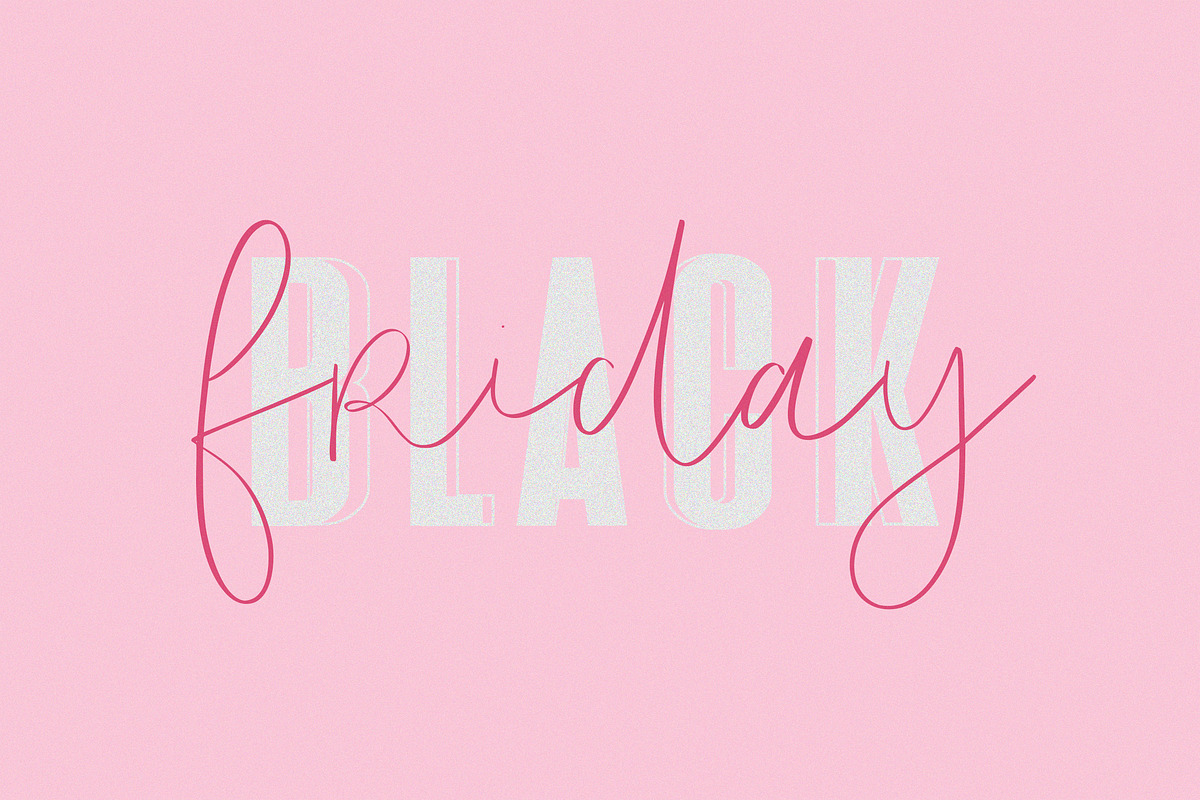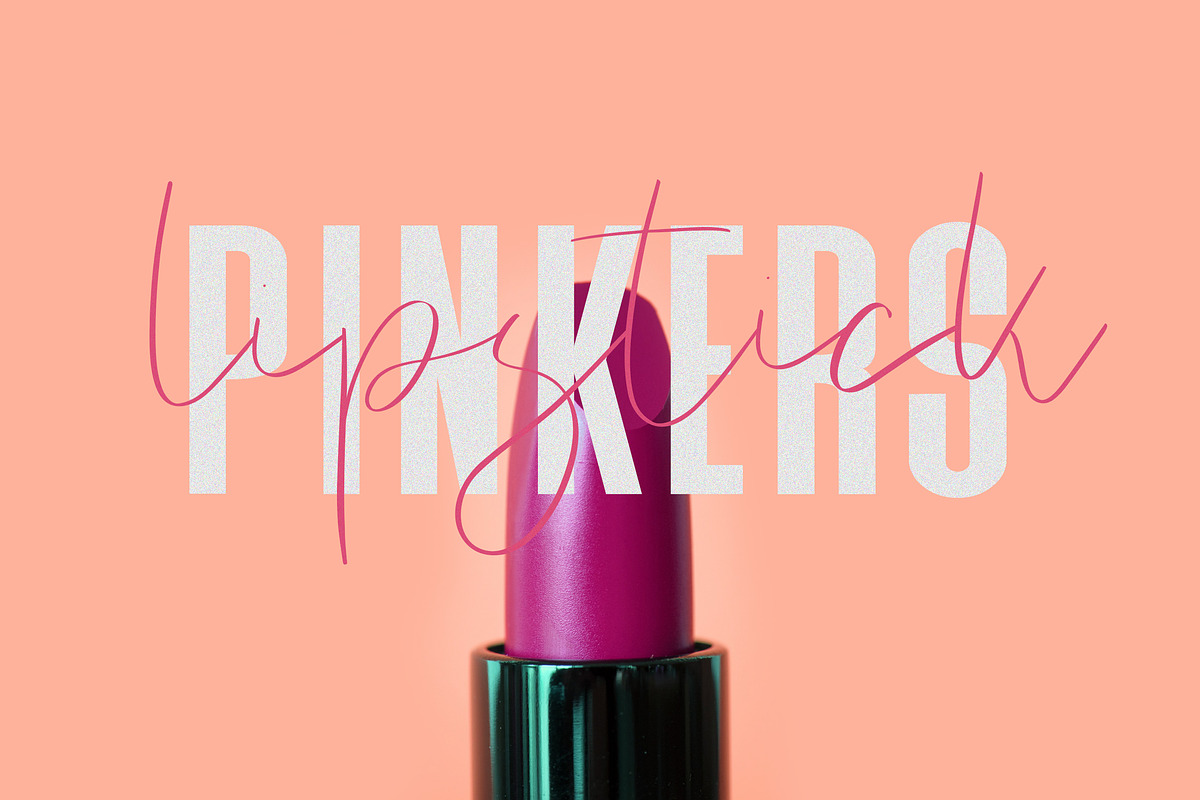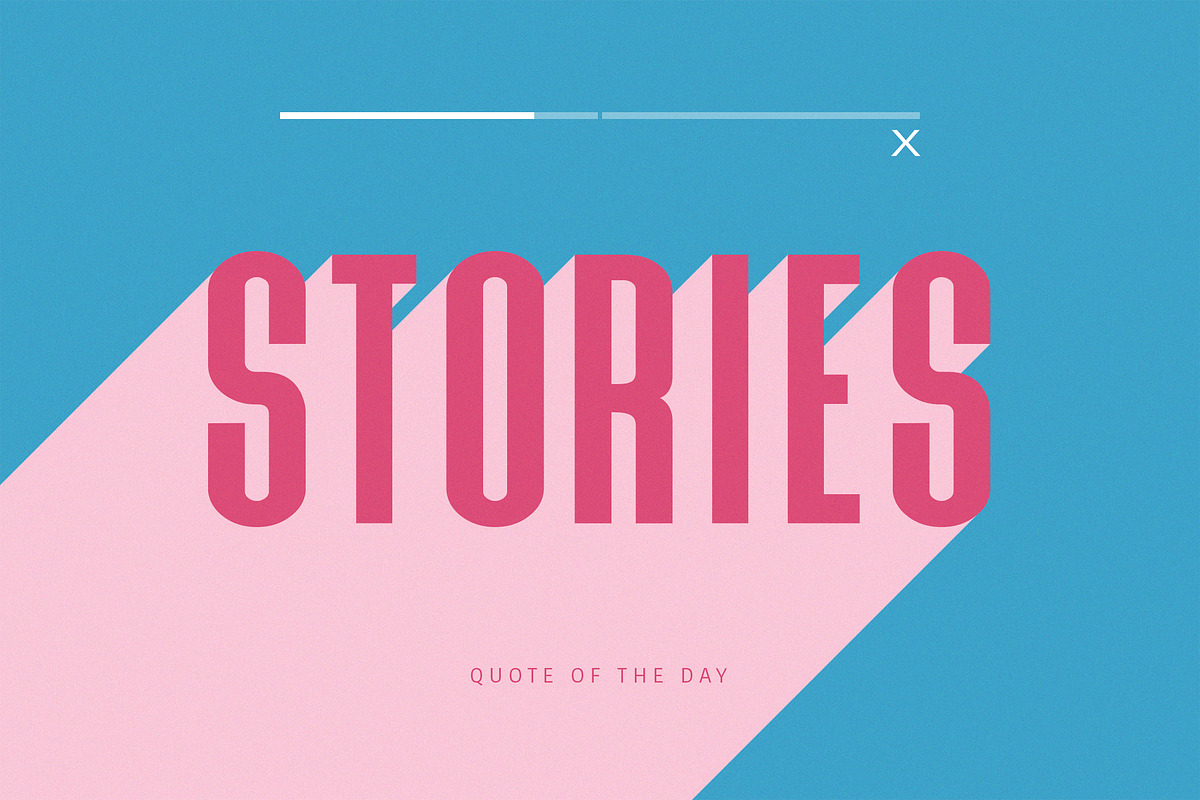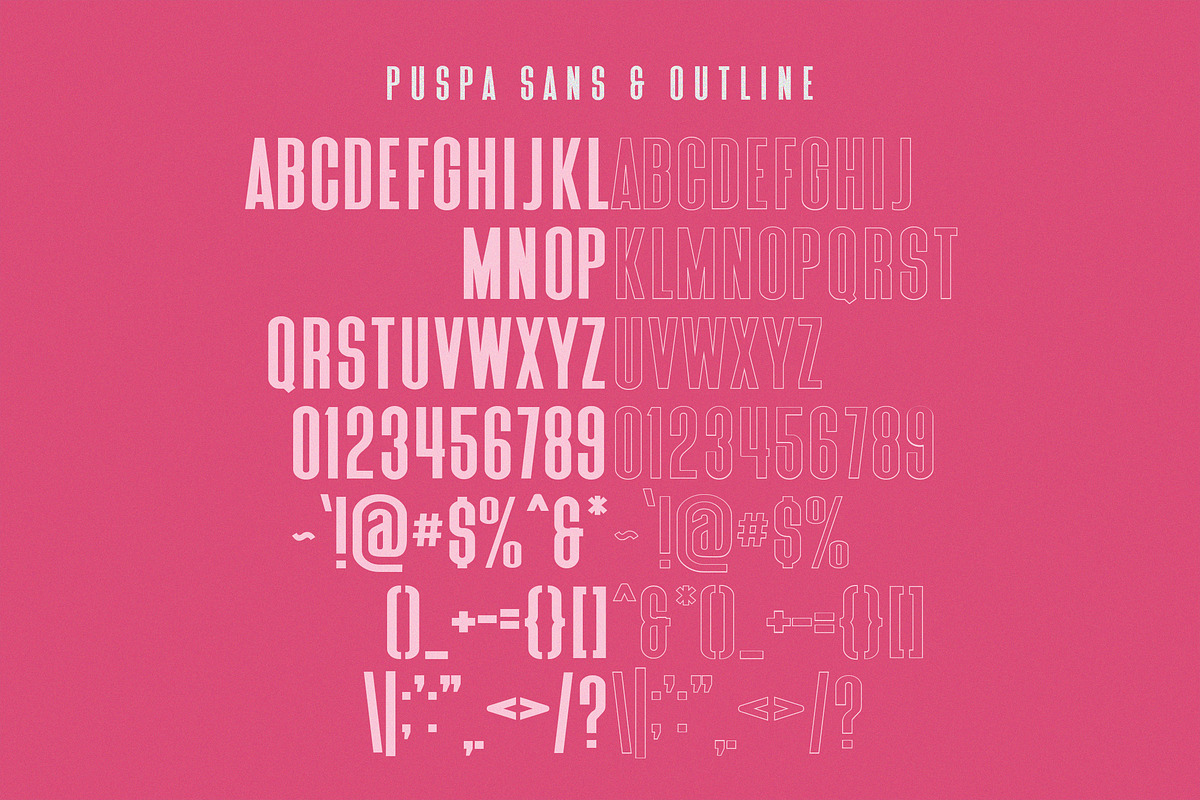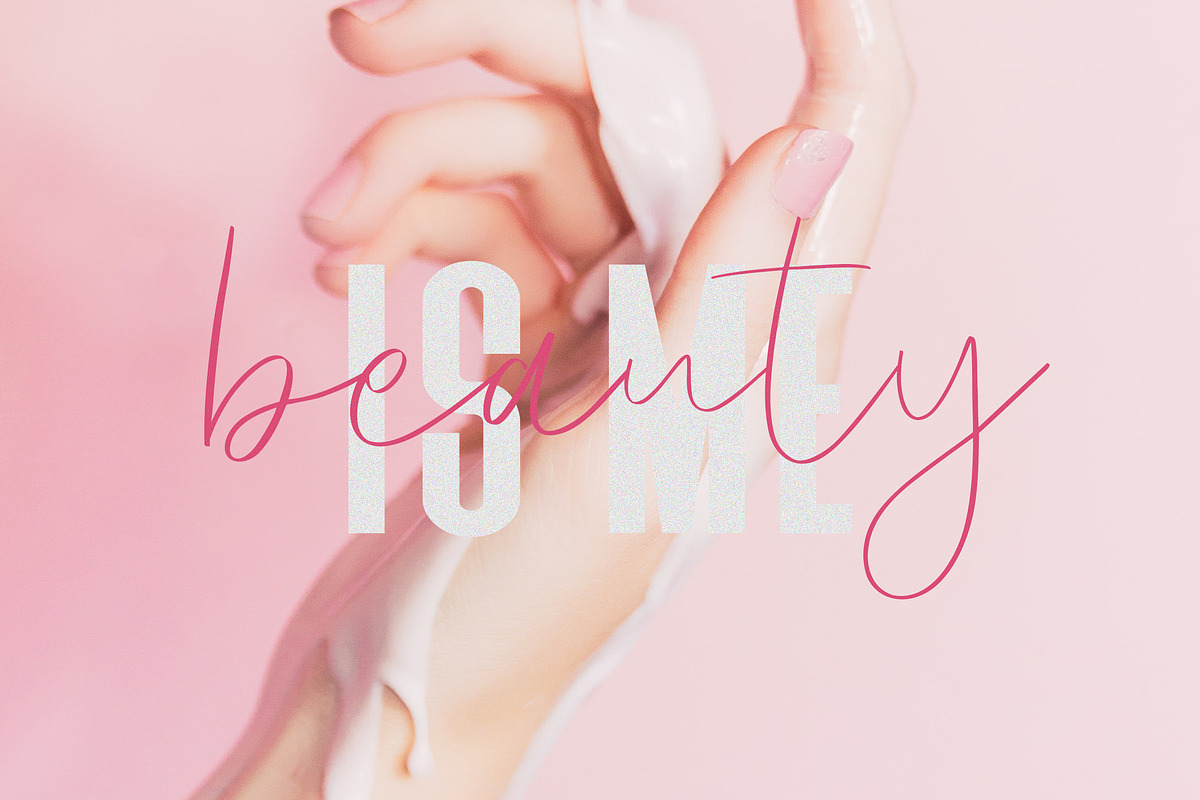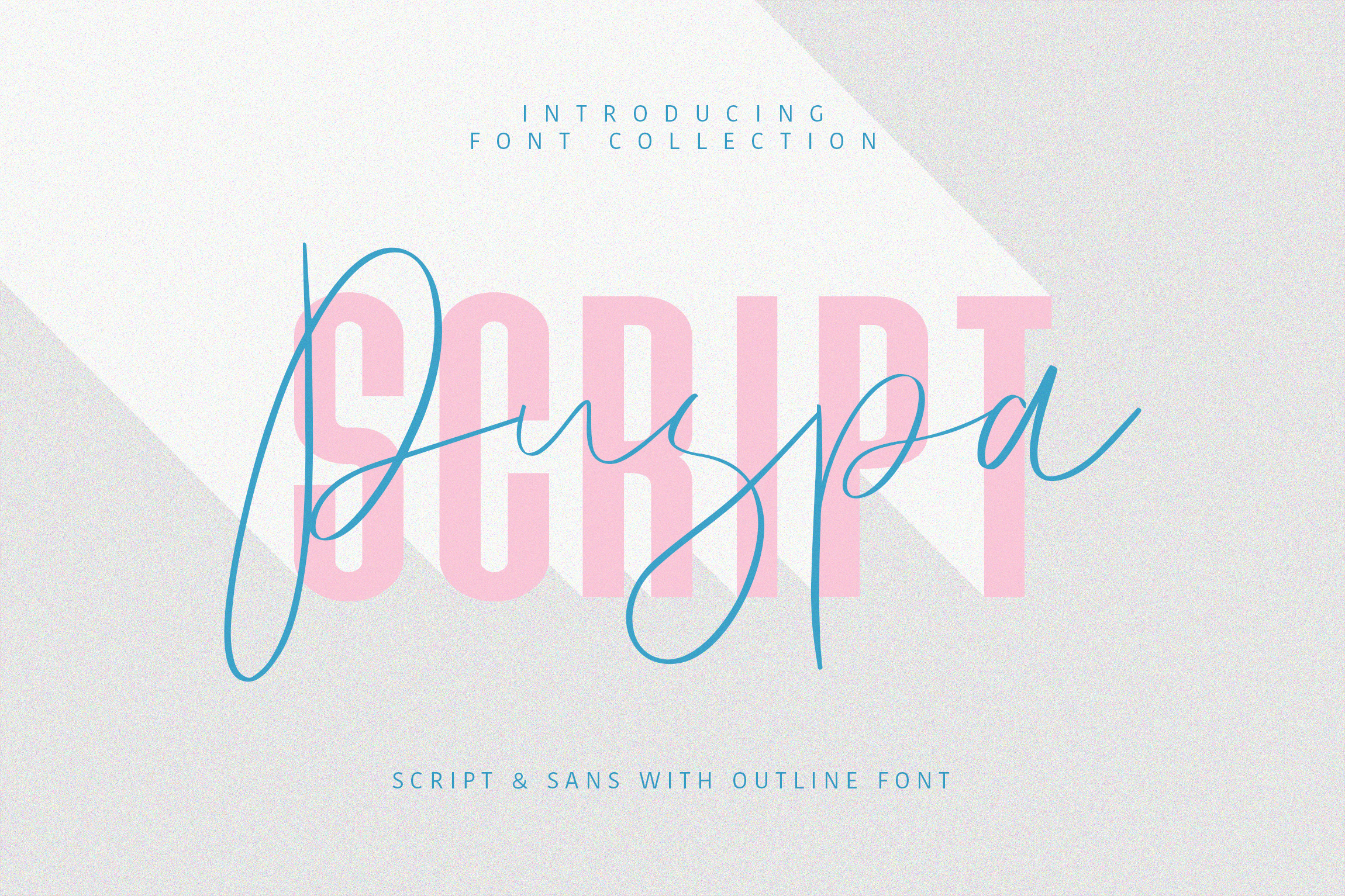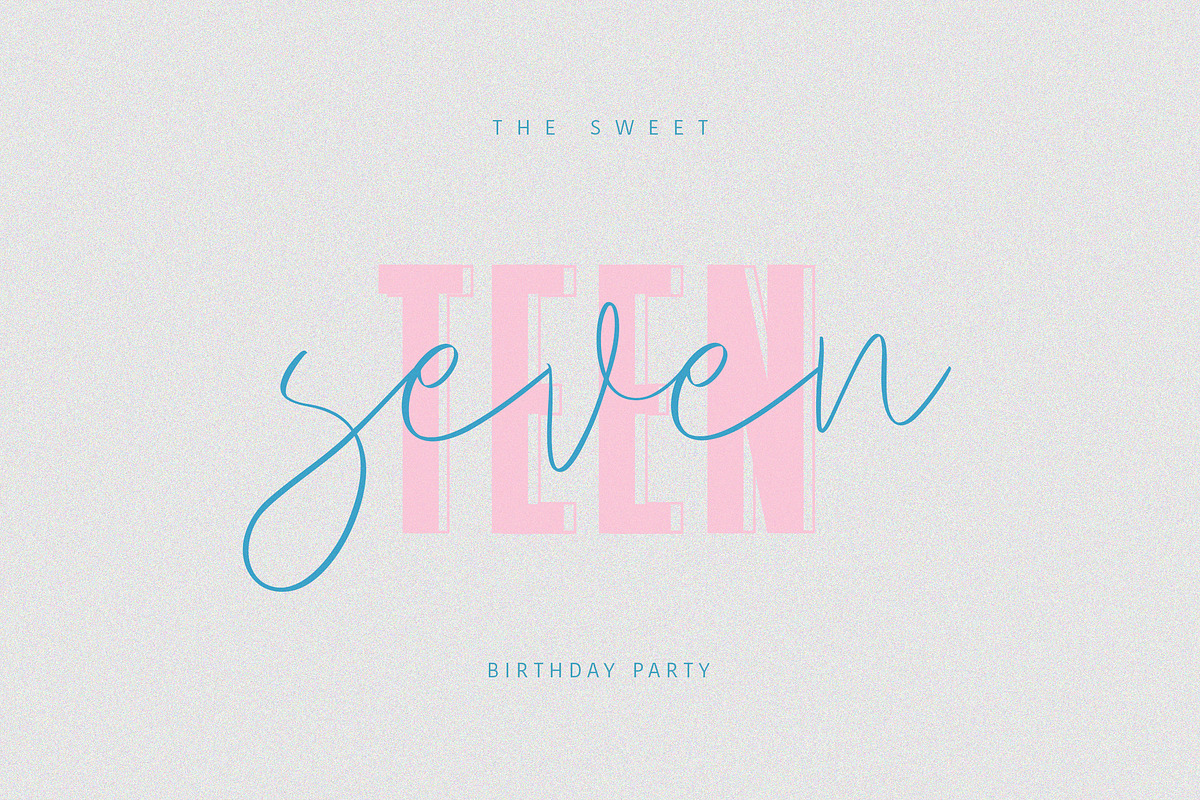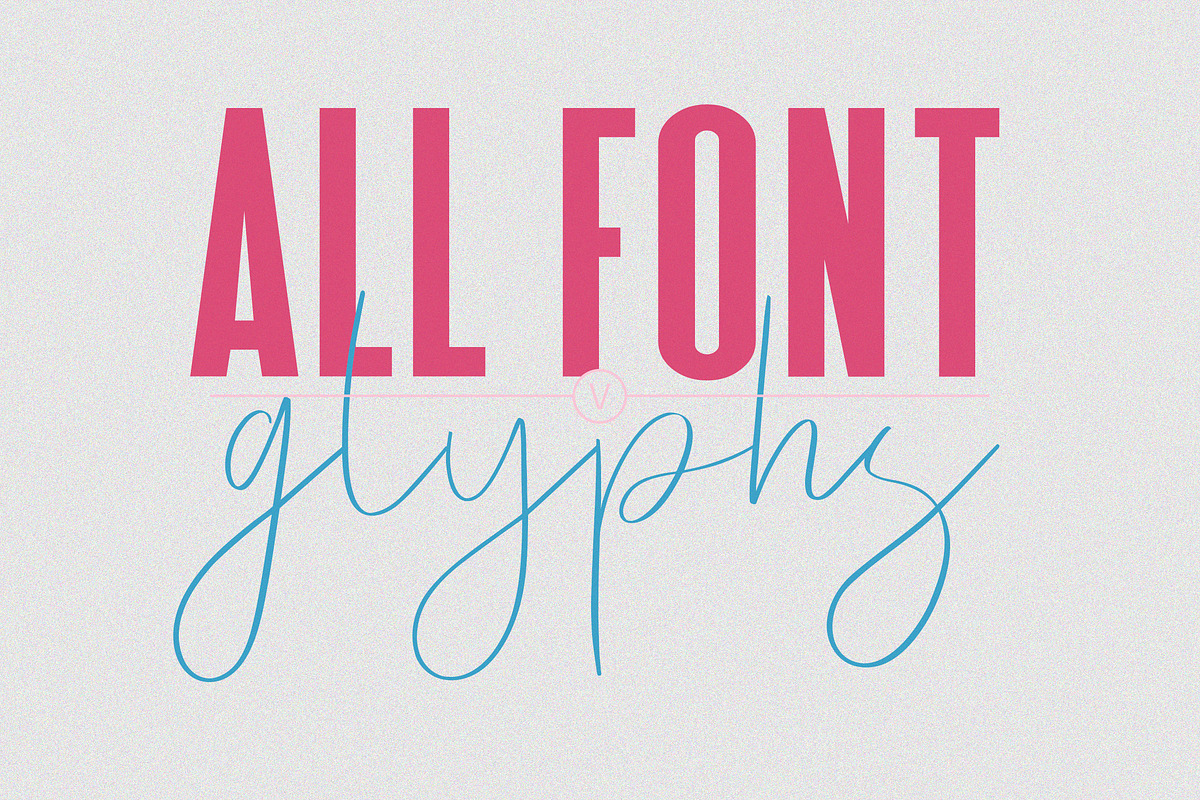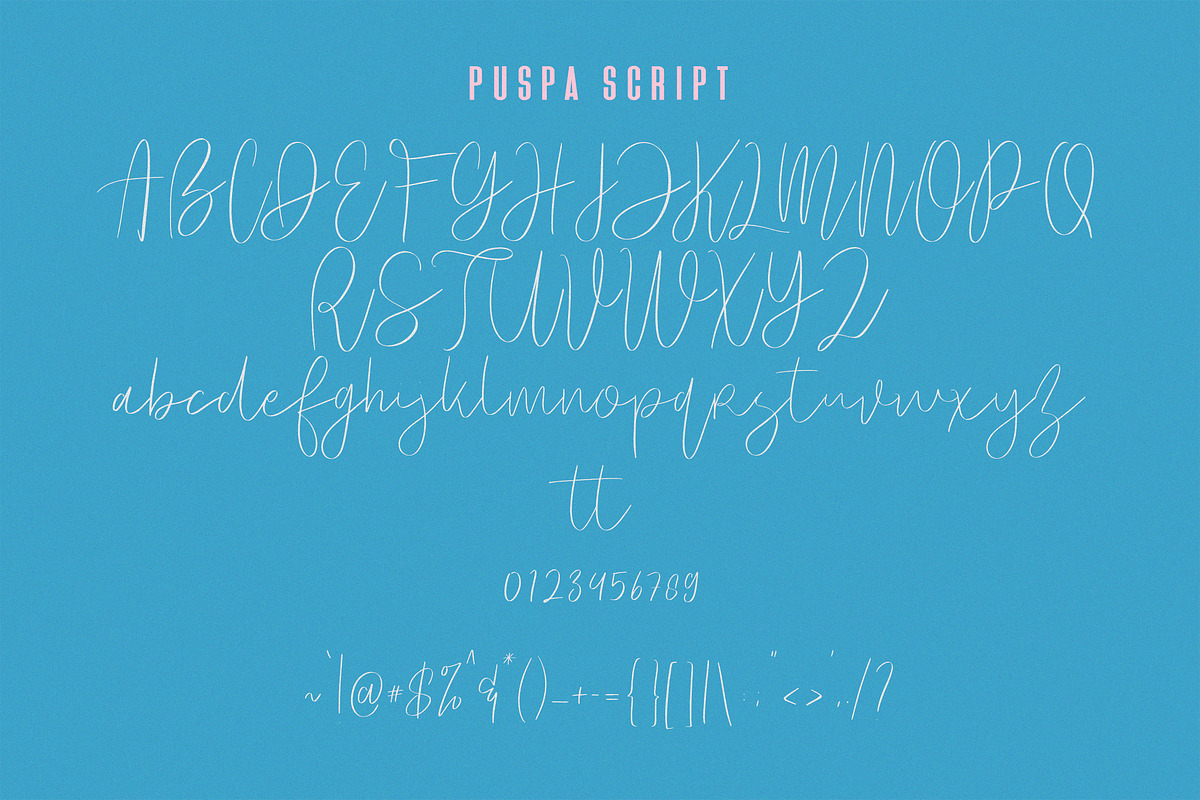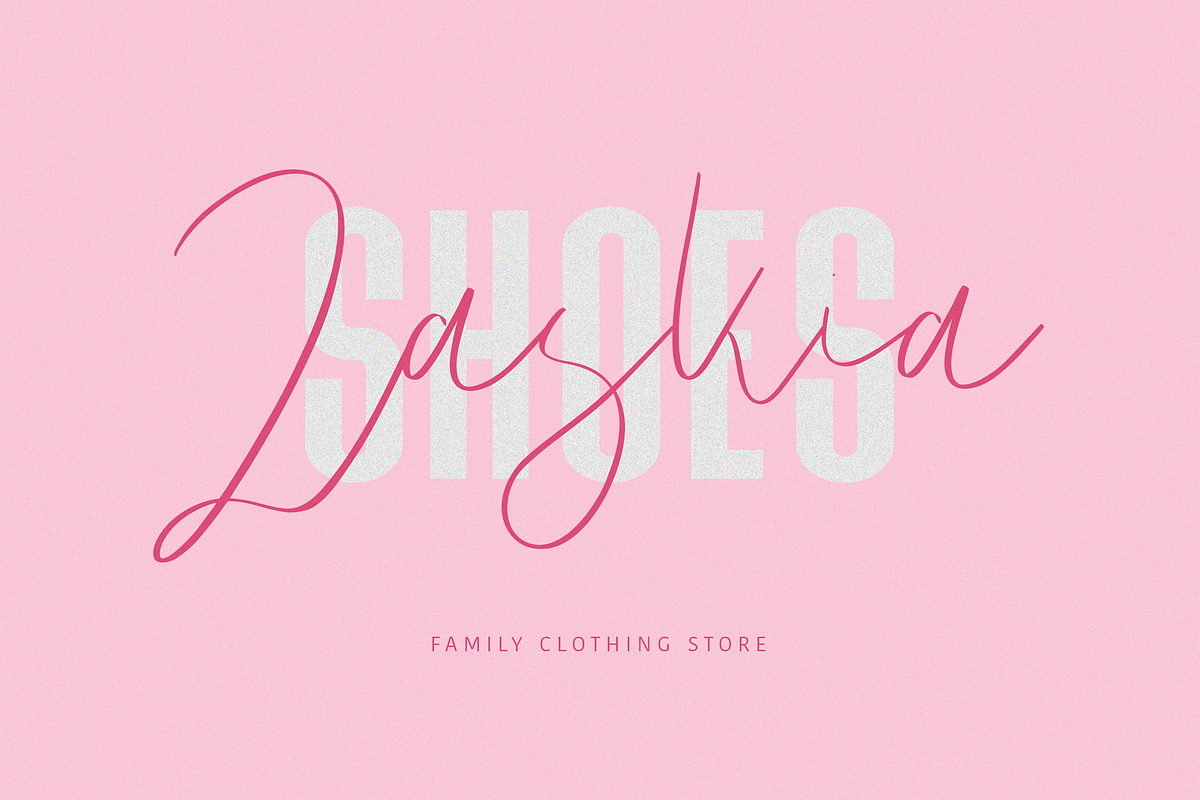
Puspa Script Sans Font
Give your designs an authentic handcrafted feel. “Puspa Script Sans Font” is perfectly suited to signature, stationery, logo, typography quotes, magazine or book cover, website header, clothing, branding, packaging design and more.
Font Available:
- Puspa Script
- Puspa Sans
- Puspa Sans Outline